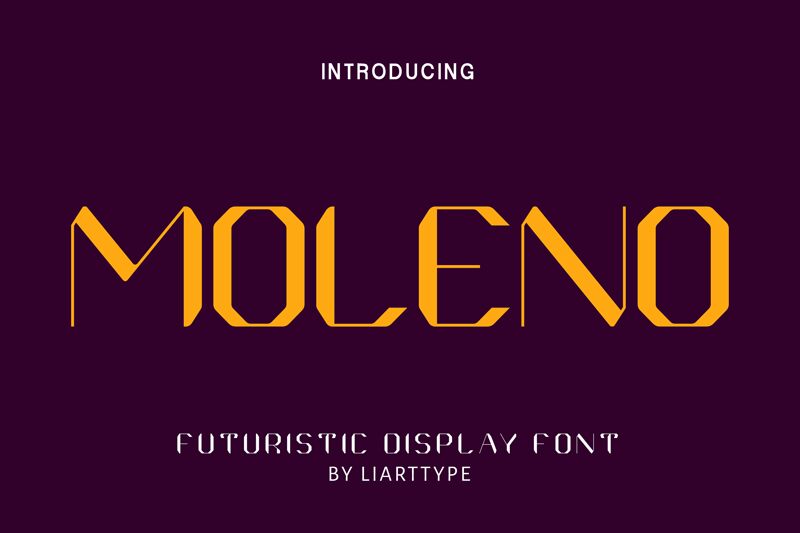
Moleno, crafted by Sifak Muf of Liarttype, is a techno-inspired display font that commands attention with its bold geometric forms and futuristic aesthetic. The sharp angles and clean lines imbue it with a distinctly modern vibe, making it ideal for projects that aim to stand out. Its striking design is perfect for headlines, posters, and branding elements where visibility and impact are paramount.
Whether used in technology-themed designs or to add a contemporary touch to any creative venture, Moleno delivers an unmistakable visual punch. Its unique style ensures that your message is not only conveyed but remembered.